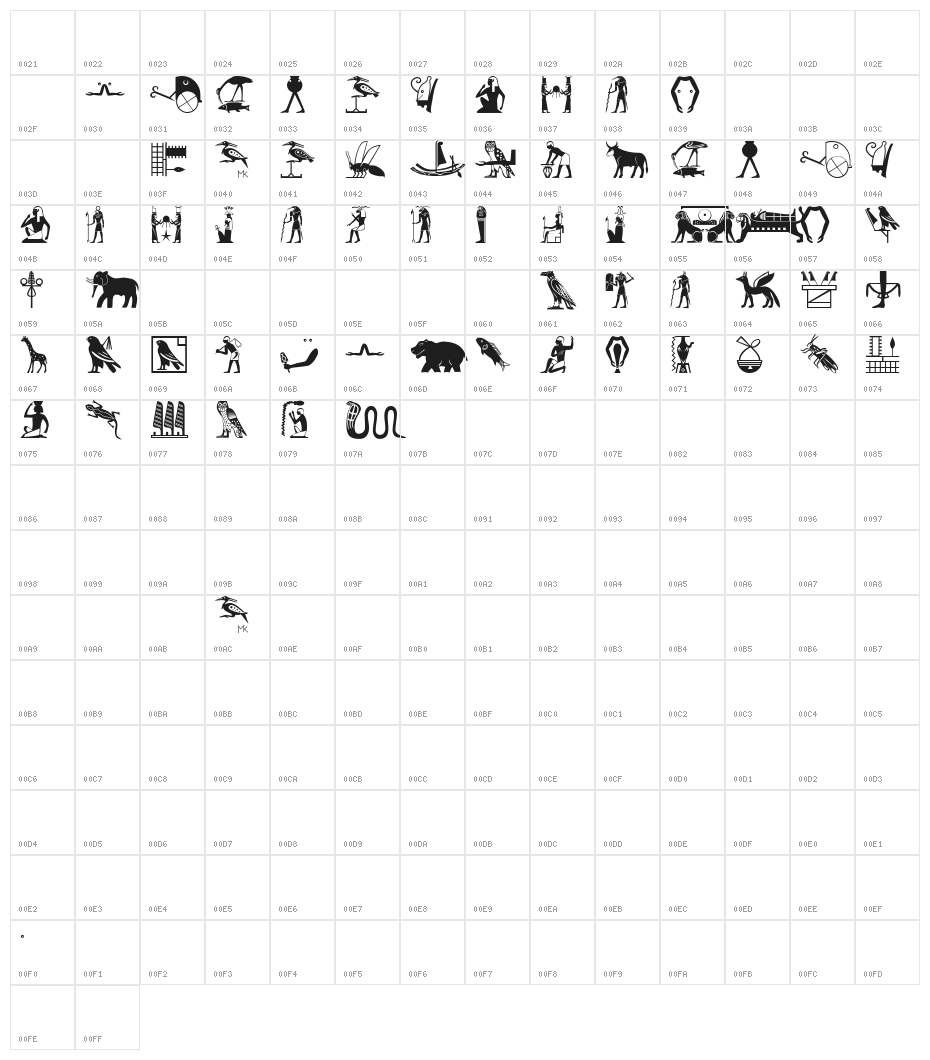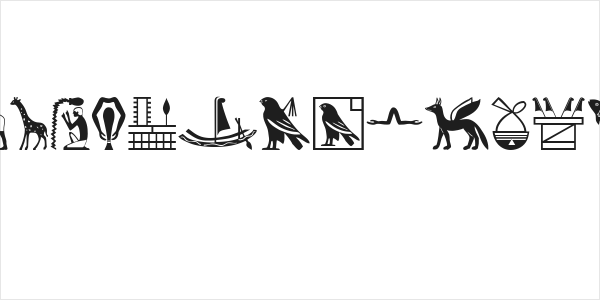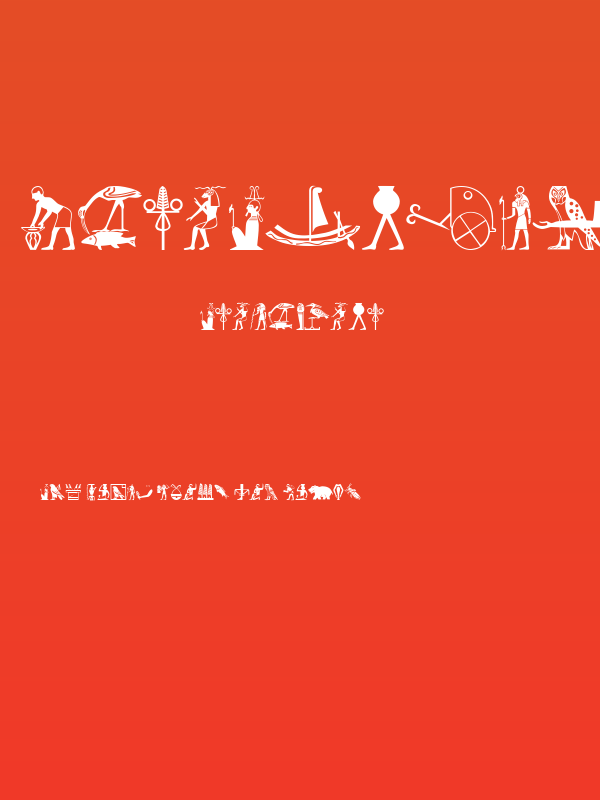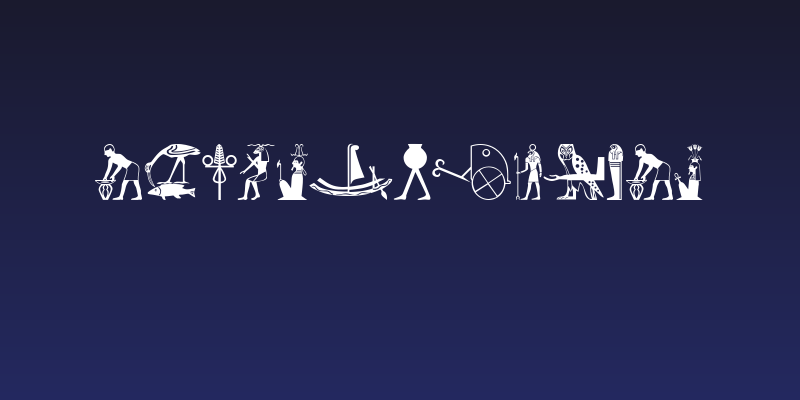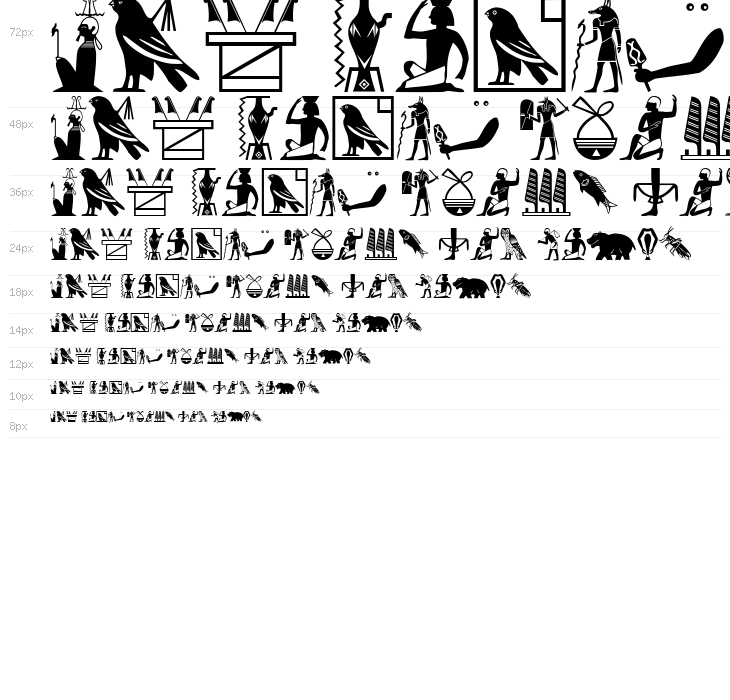
EgyptChildren Font
EgyptChildren Description
A decorative font composed of Egyptian hieroglyph-style pictograms, each character represented by a unique ancient symbol or figure. The glyphs are highly illustrative, featuring animals, people, and objects, with varying stroke weights and intricate details.
| Overall Style | Decorative, Historical, Thematic |
| Use Case | Logos, Posters, Educational headings, Themed event invitations |
| Proposed Projects | Educational materials, museum displays, themed posters, historical games, creative art projects. |